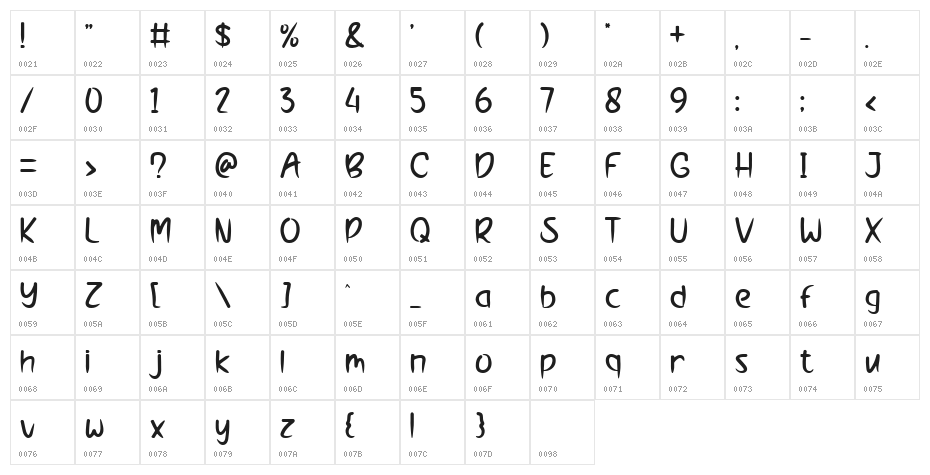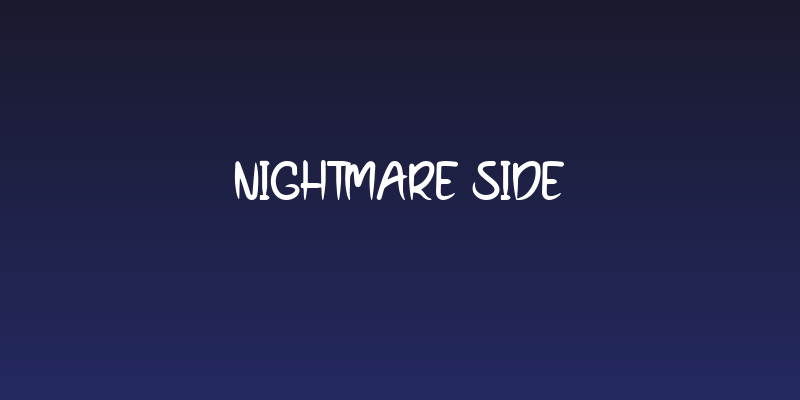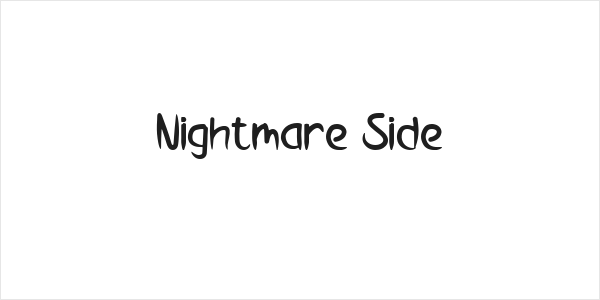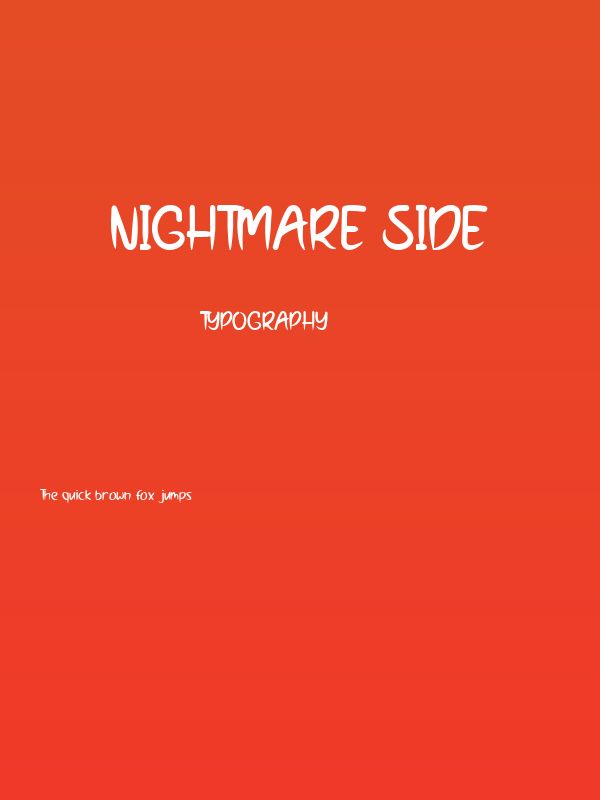
Nightmare Side Font
Nightmare Side Description
This font features a playful and slightly spooky handwritten style, characterized by its irregular and whimsical letterforms. The strokes are bold and rounded, giving it a friendly yet eerie appearance. The uppercase letters are slightly taller than the lowercase, and the overall design has a casual, informal feel. The numbers and special characters maintain the same quirky style, making it suitable for creative and unconventional projects. The font's unique personality makes it ideal for Halloween-themed designs, children's book covers, or any project that requires a touch of fun and mystery.
| Proposed Projects | Ideal for Halloween designs, children's books, and creative projects. |